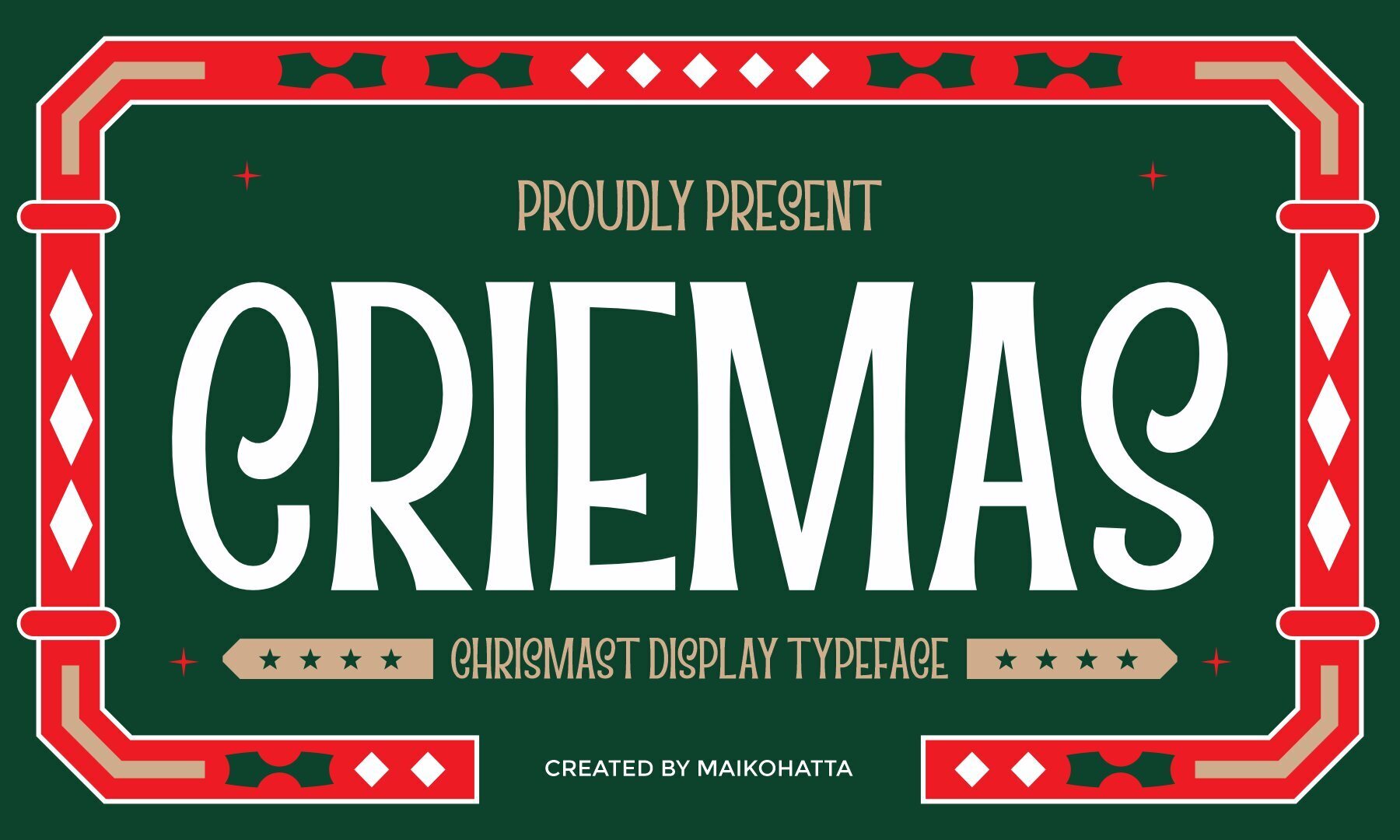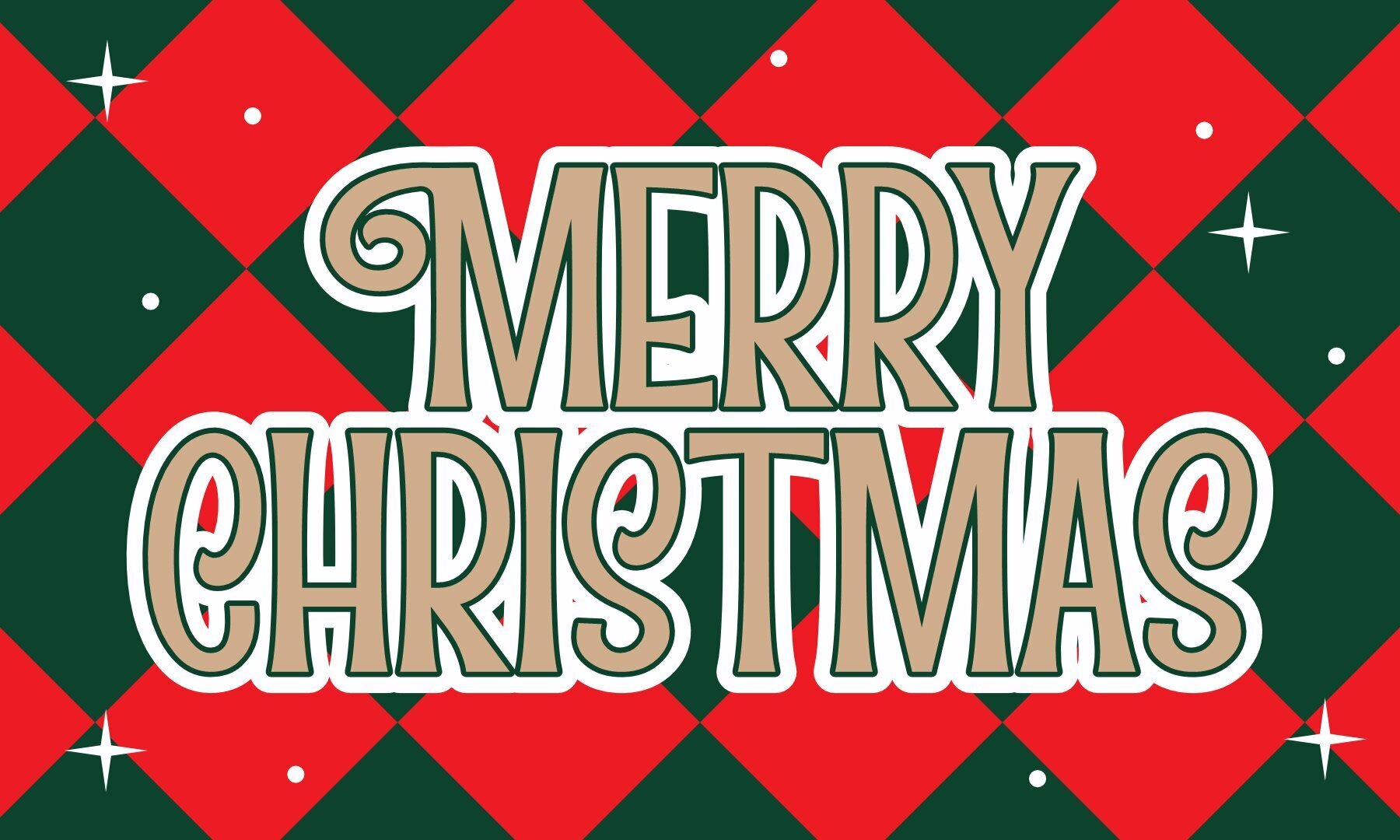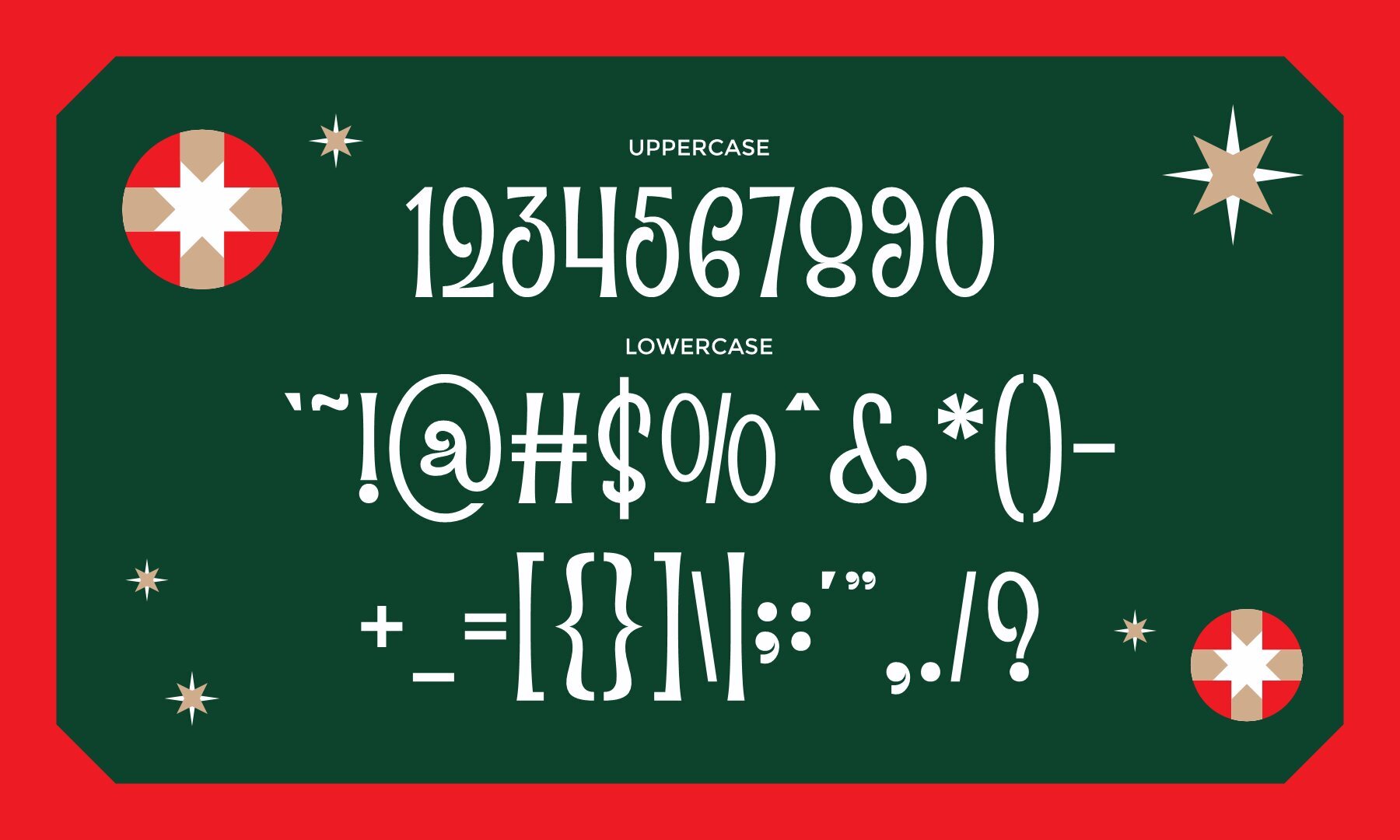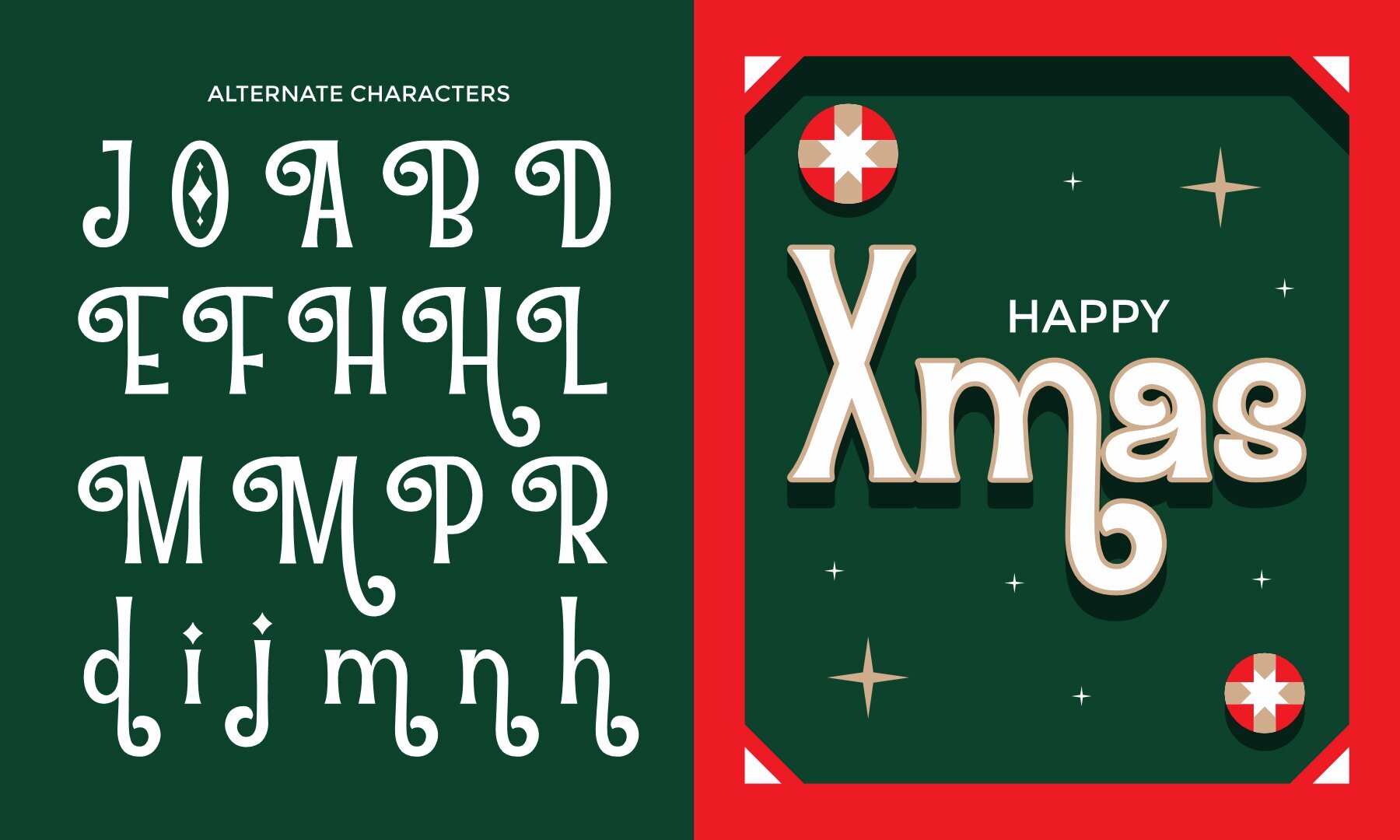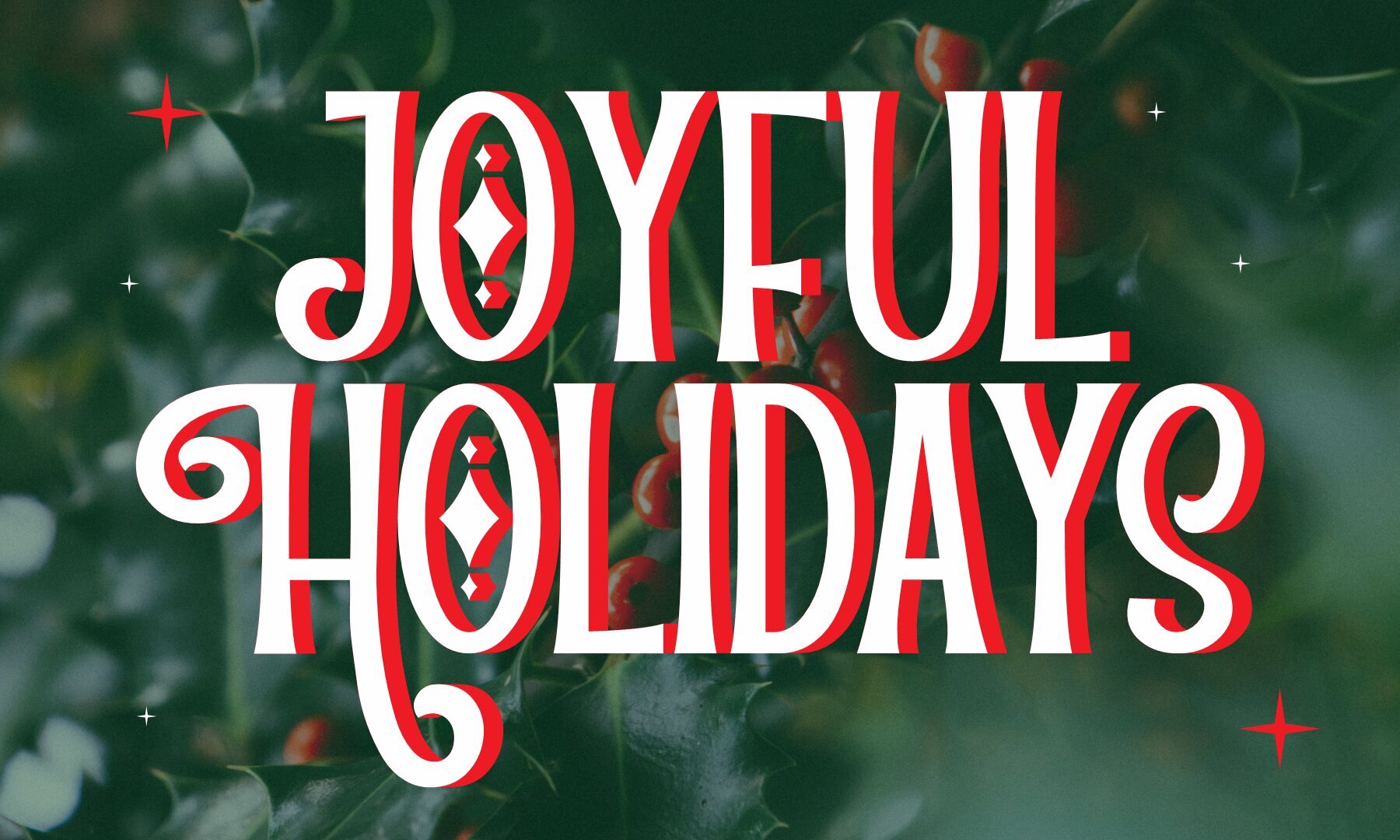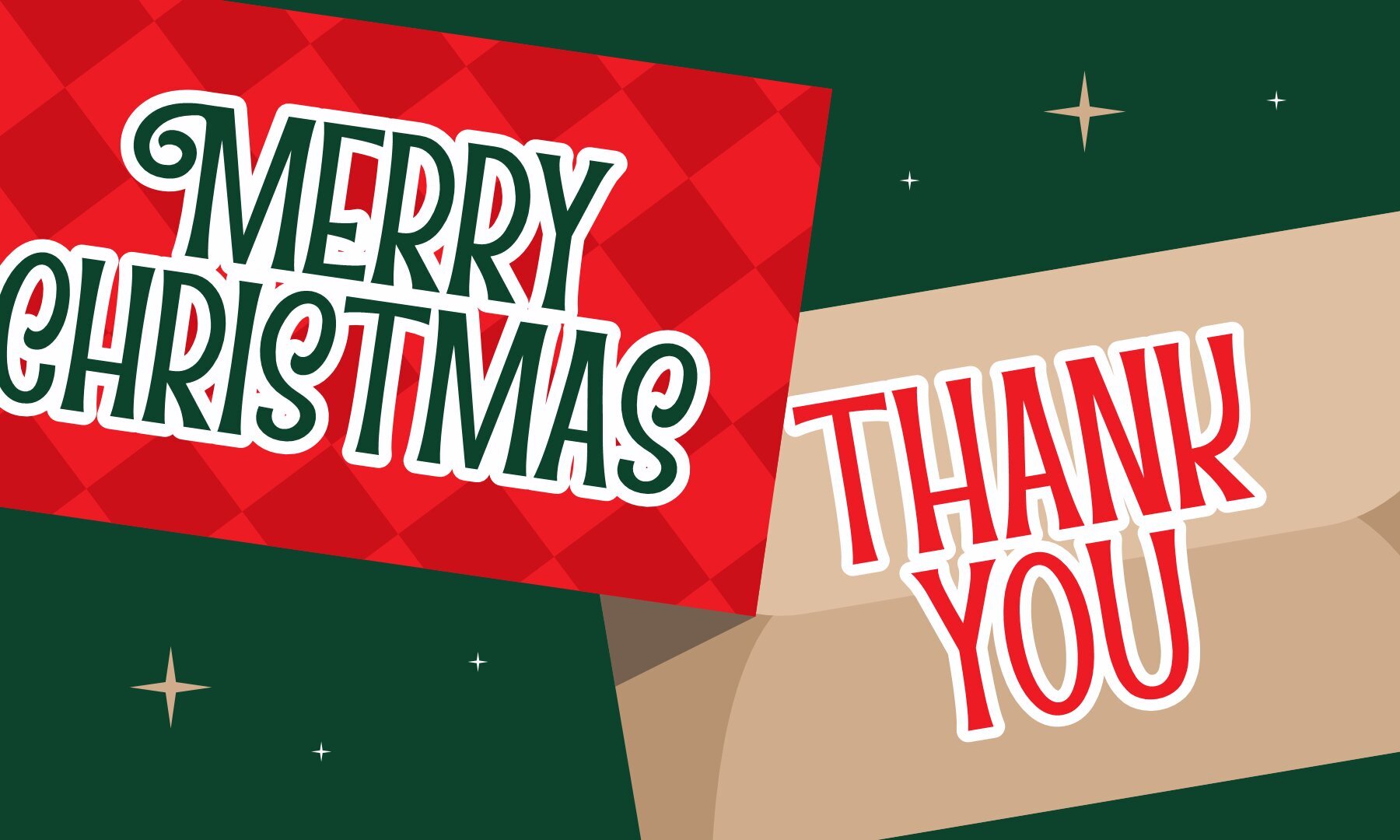
Criemas Font
CRIEMAS
Criemas stands out as a Christmas display typeface characterized by tall, playful letterforms and a warm retro aesthetic. With stretched curves, soft edges, and distinctive proportions, Criemas delivers a joyful visual language designed for seasonal projects. The typeface creates a welcoming holiday atmosphere while retaining clarity and strong visual appeal—ideal for designers seeking a unique balance of tradition and modernity. The decorative detailing and lively character make Criemas suitable for a range of creative contexts, including greeting cards, posters, packaging, and social media graphics. Its vintage holiday spirit pairs seamlessly with contemporary design needs, resulting in bold, memorable visuals for winter branding campaigns.Criemas: Festive Display Typeface with Retro Holiday Charm